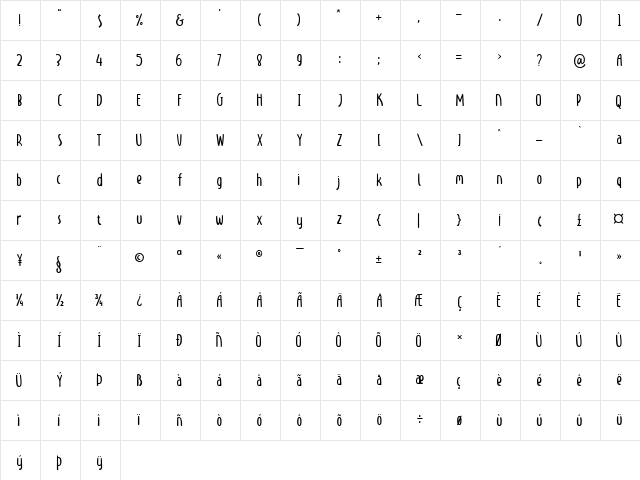
LD Cherries Light Regular
Design Context for LD Cherries Light Typeface
LD Cherries Light is a composed and adaptable typeface that performs quietly and consistently across a wide range of design contexts. Its slender proportions lend an understated elegance to any composition.
Pro Tip: Use LD Cherries Light in both headline and body roles to test its range before committing to a single application.